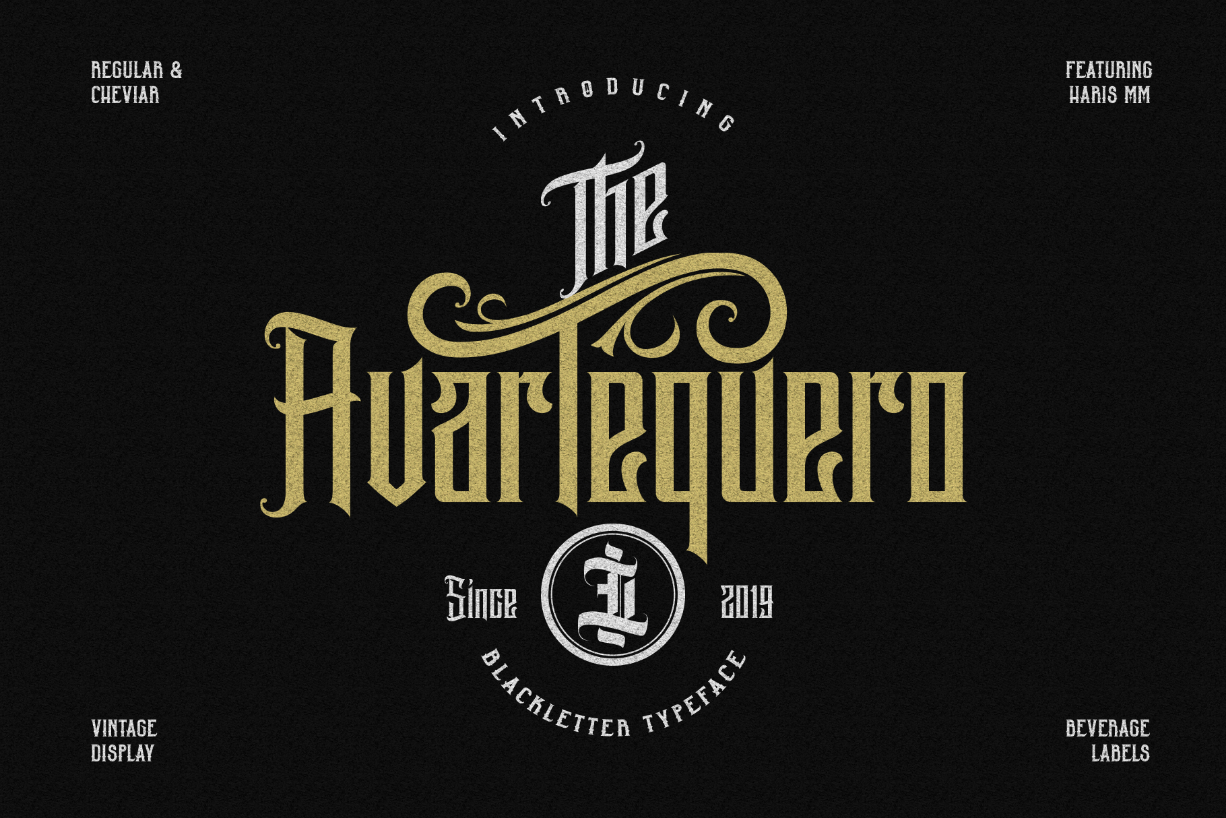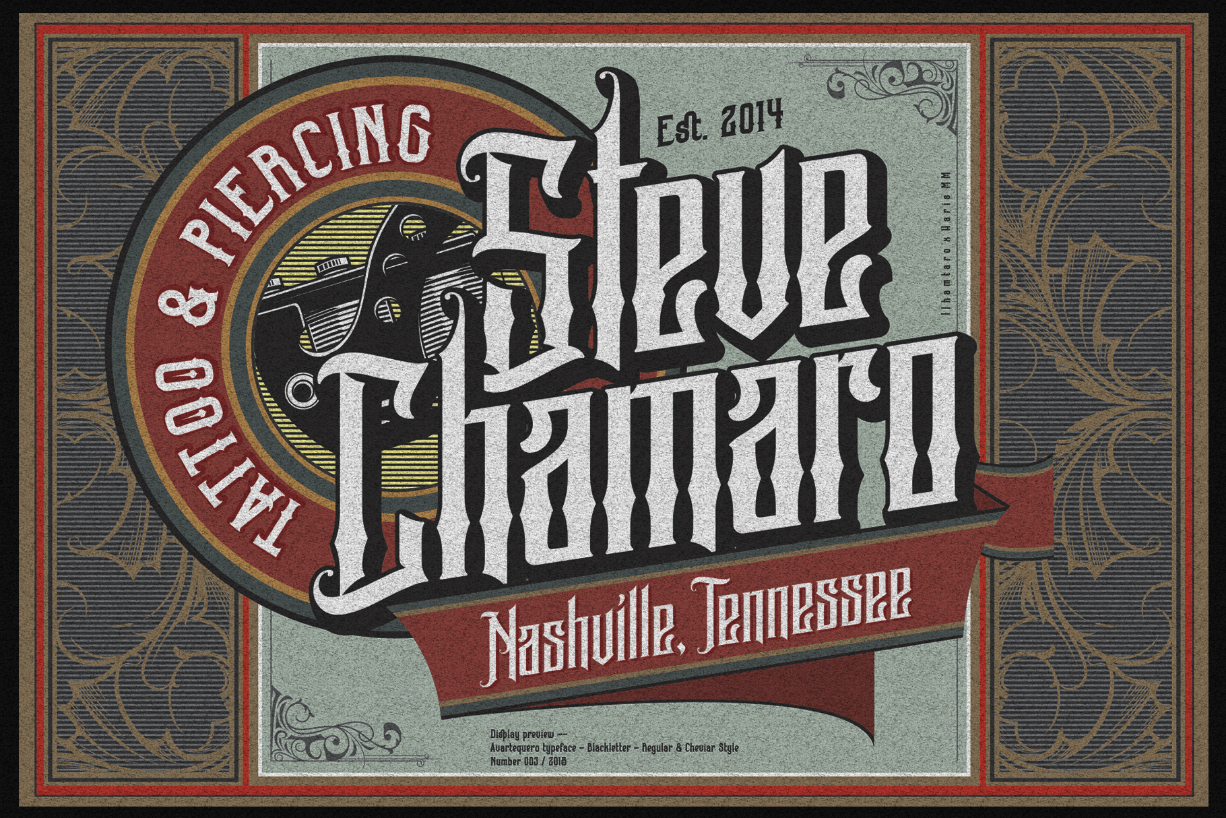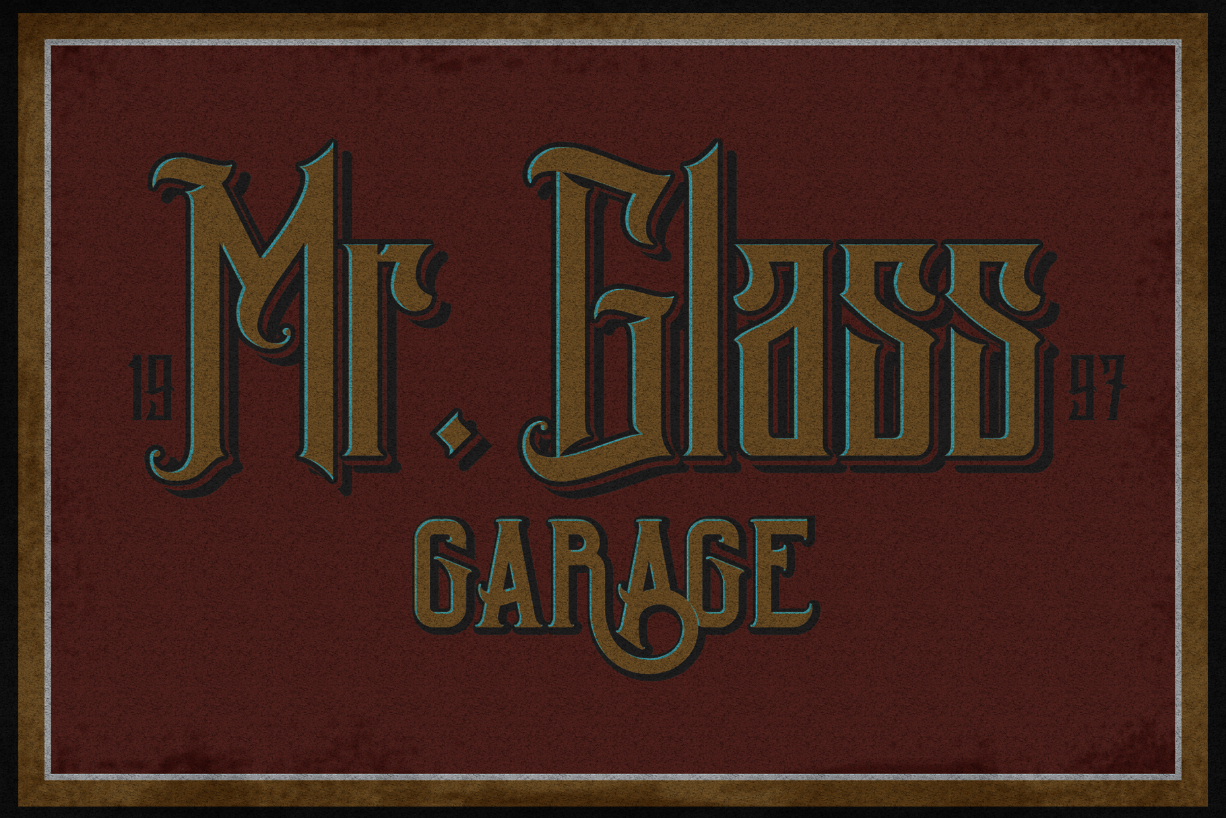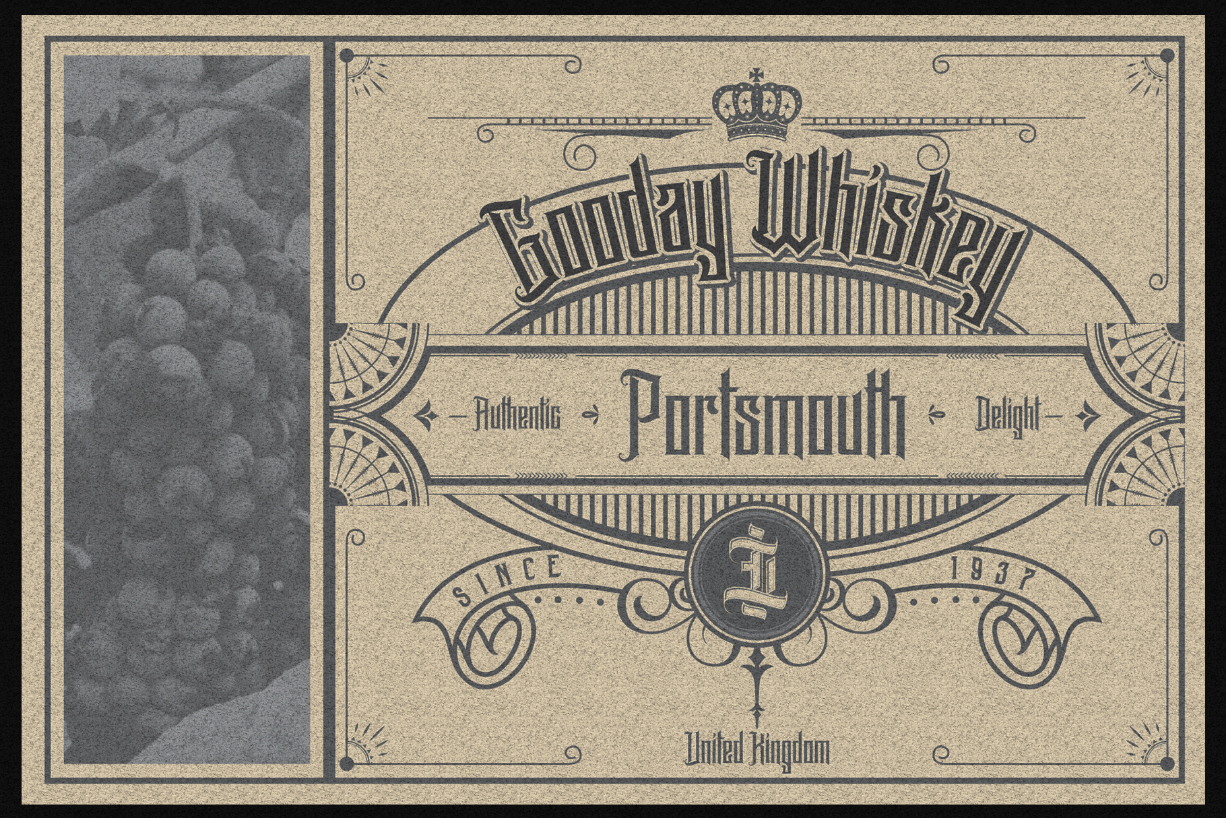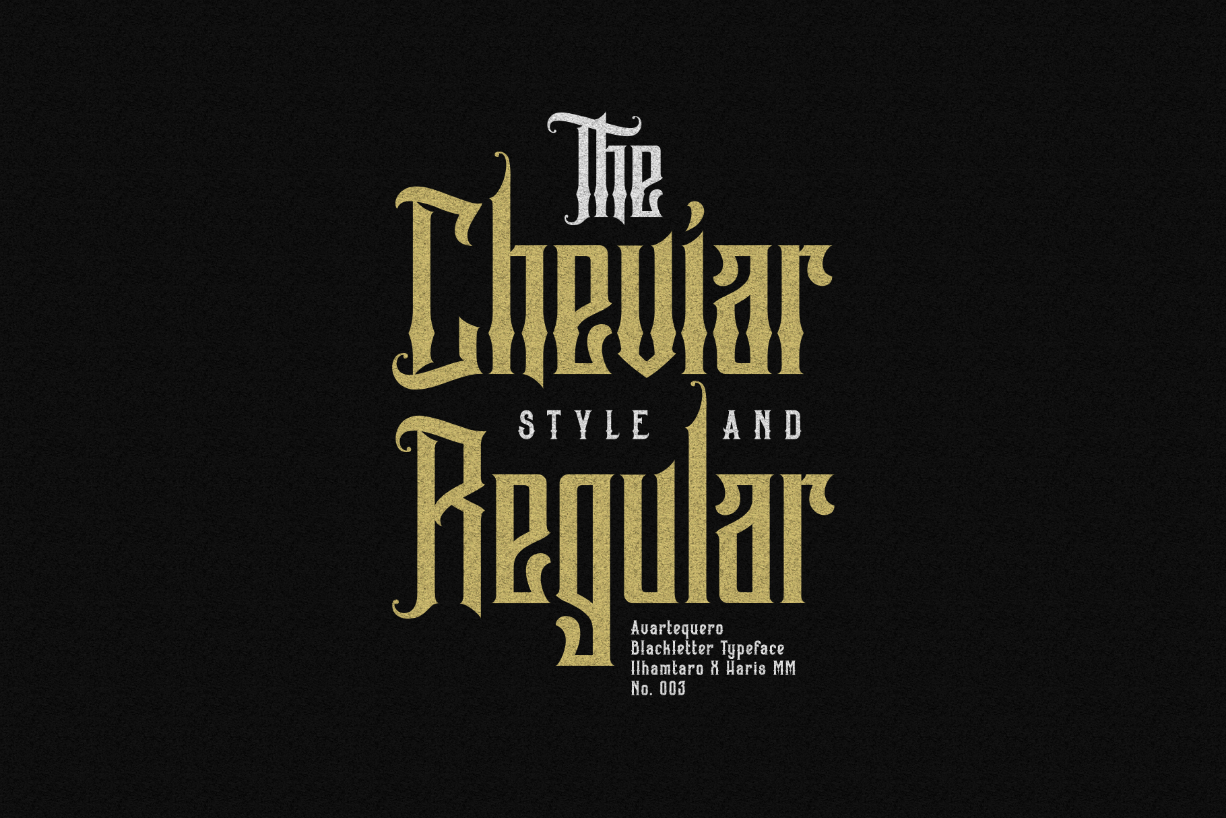
Avartequero Font
About Avartequero Font
Avartequero is a daring, thick lettered and authentic blackletter font. Use this font for your designs and explore its endless possibilities.